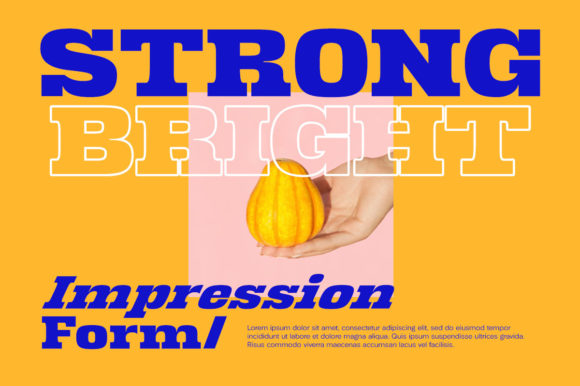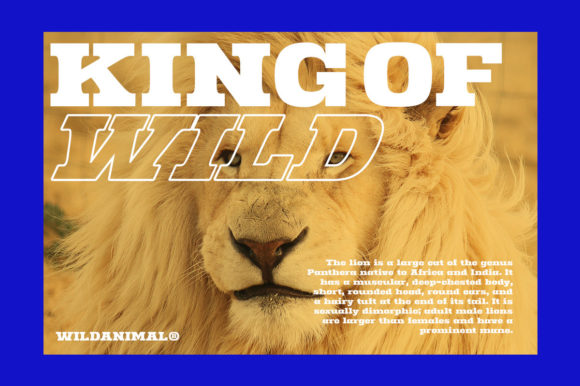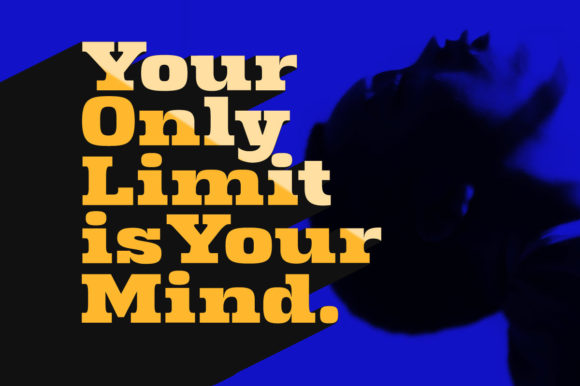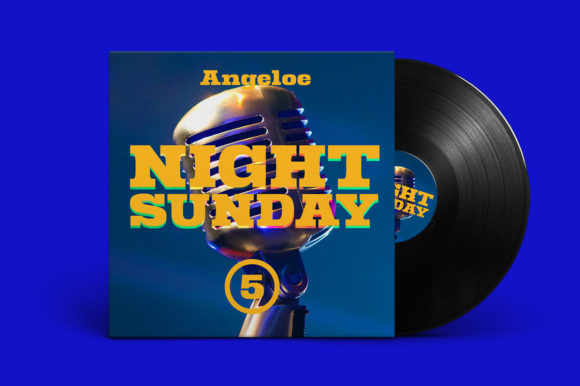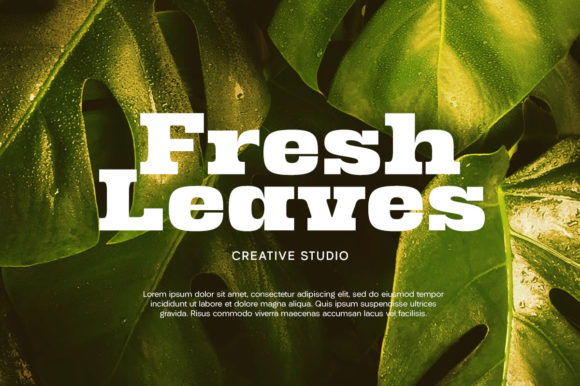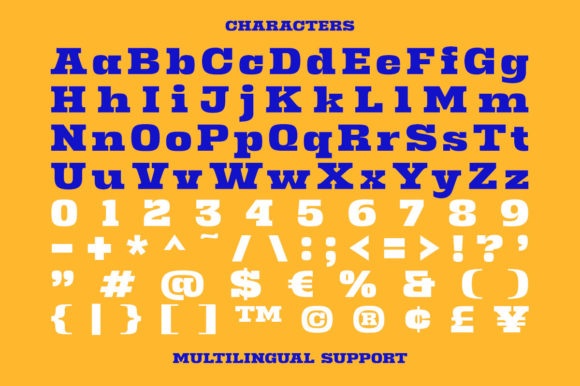
Introduction to Ridge Cliff Font Font
Fonts play a crucial role in design, and the Ridge Cliff Font font is a typeface that brings both character and versatility to any project. Whether you’re working on a branding project, a website, or a print design, the Ridge Cliff Font font offers a unique style that can elevate your work.
Ridge Cliff is a cool, thick lettered and outlined slab serif typeface with a strong look and feel.
This type of font was perfectly made to be applied especially in logos, headlines, signage and other various forms of design, such as invitations, labels, magazines covers or book titles .
Key Features of Ridge Cliff Font Font
Why Choose Ridge Cliff Font Font?
The Ridge Cliff Font font is more than just a typeface – it’s a design tool that helps you communicate your message with style and clarity. Its unique character set and versatile design make it suitable for a wide range of applications, from elegant invitations to bold headlines.
With its carefully crafted letterforms and balanced proportions, the Ridge Cliff Font font ensures readability and visual appeal across all mediums.
What makes Ridge Cliff Font font special?
The Ridge Cliff Font font stands out with its unique design, exceptional readability, and versatility across various design applications.